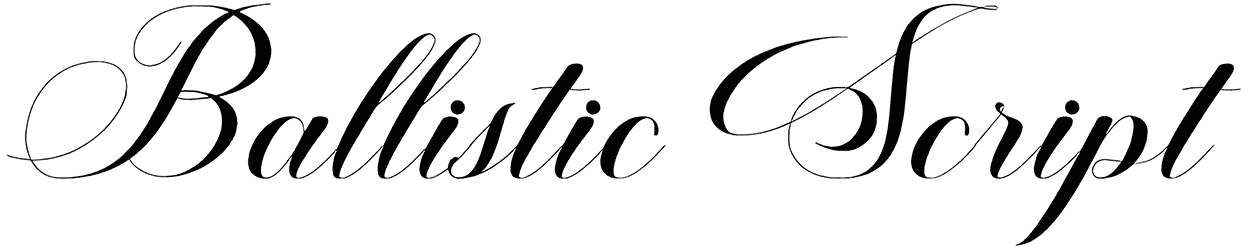
Ballistic Script Font
For your spring posters, funeral invitation cards, autographs, Valentine’s Day party flyers, and anywhere else the decorative touch of your text matters to you, you can count on Ballistic Script as a nice calligraphy font.
With enough swirls and flourishes in its letters, arranged in an italic style, this luxury script font will elevate the visual appeal of your typography to a tee. If you don’t want to take any risks about its readability, make sure it’s used in large sizes.